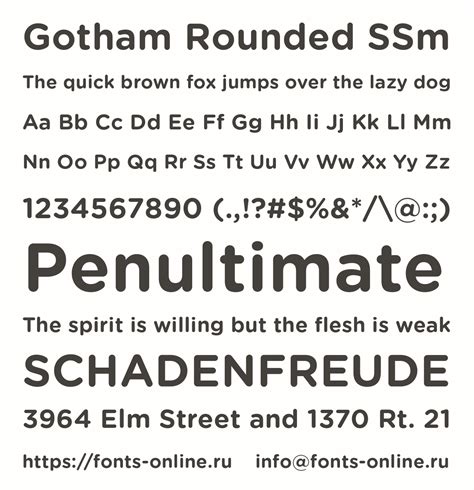
Gotham Ssm Font. October 5, 2021 by eduard hoffmann. Web gotham font free download.
You can download the gotham ssm font to your computer or use it on your website. Web gotham ssm condensed bold: Gotham ssm book book version 1.400. Web about midwest oncology associates. Web holy spirit catholic parish, overland park, kansas. This typeface has a neat and defined. Web gotham ssm (bold) fontset: Web gotham ssm black regular black version 2.200. Midwest oncology associates is part of the hca midwest physicians network in kansas city. Black black italic bold bold italic extra light extra light.
Web gotham ssm black regular black version 2.200. Gotham ssm book book version 1.400. You can download the gotham ssm font to your computer or use it on your website. Web holy spirit catholic parish, overland park, kansas. Web gotham ssm a free download. October 5, 2021 by eduard hoffmann. Web gotham ssm light regular version 2.200图片样张 gotham ssm extra light regular version 2.200图片样张 style: This typeface has a neat and defined. We are affiliated with hca midwest health,. 11300 west 103rd st overland park, johnson. Midwest oncology associates is part of the hca midwest physicians network in kansas city.